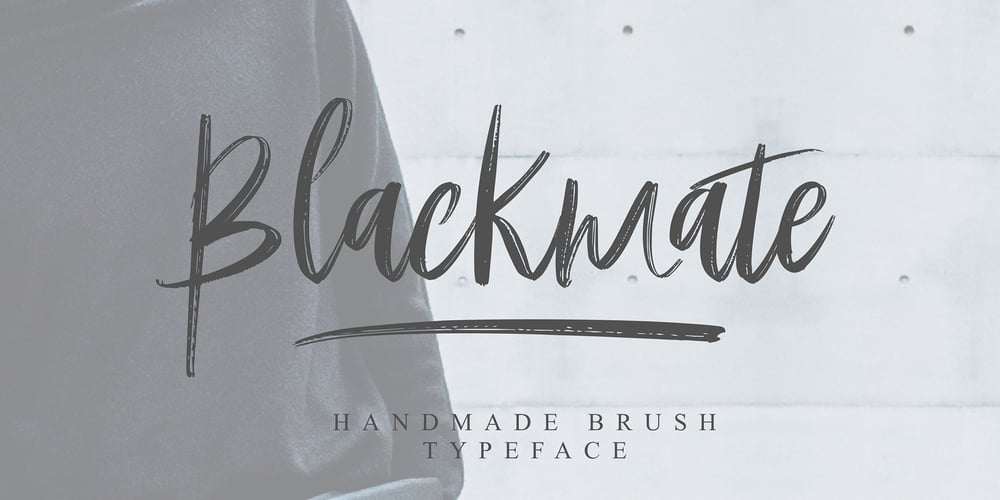
Blackmate Font Family was designed by Rachma and published by BonjourType. Blackmate contains 1 styles and family package options. Blackmate is a handwritten script font that has a brush-like texture and will look great for quotes, social media posts, branding projects, headings, blogs, logos, business cards, websites, invitations, shirts, mugs, and more!